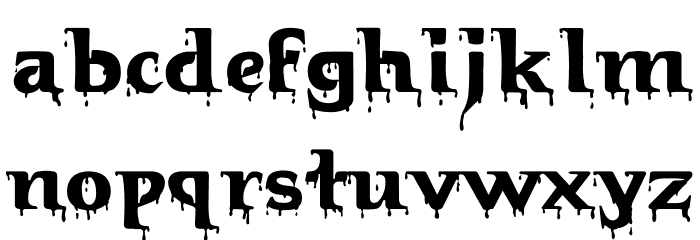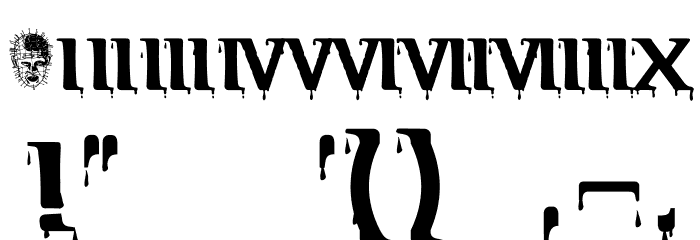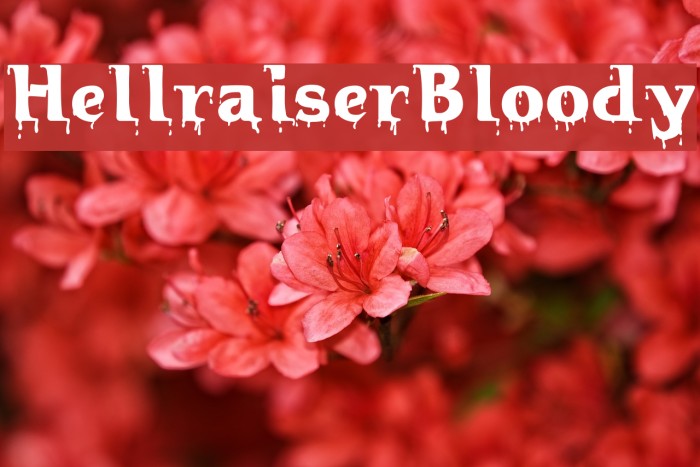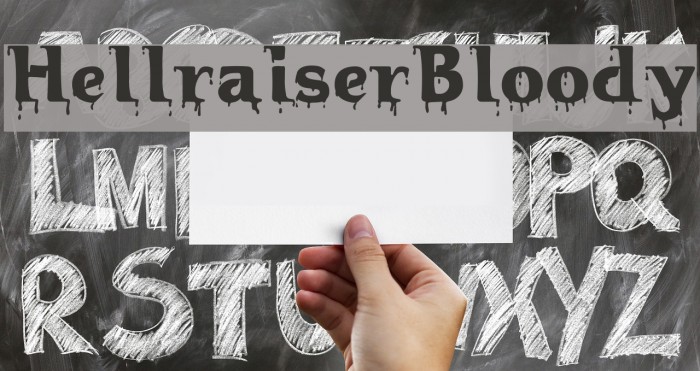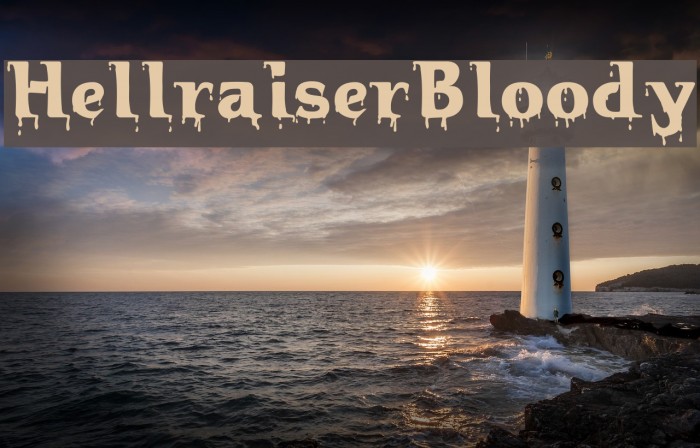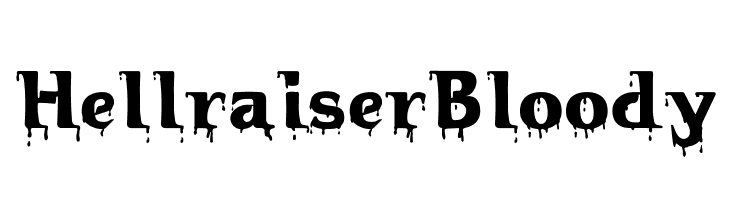
HellraiserBloody Font
This font features a dramatic and eerie design, characterized by its dripping effect that simulates blood or liquid. The uppercase and lowercase letters maintain a consistent style, with sharp edges and pointed serifs that enhance its gothic and horror-inspired aesthetic. The numerals and special characters follow the same thematic design, making it ideal for projects that require a spooky or unsettling atmosphere. The font's unique style makes it stand out, perfect for Halloween-themed designs or horror movie posters.
A horror-themed font with a dripping, blood-like effect and sharp serifs.
- Font: HellraiserBloody
- Proposed Projects: Ideal for Halloween invitations, horror movie posters, haunted house flyers, and themed event branding.
- Overall Style: Gothic, Horror
- Use Case: Headlines, Posters, Themed Events